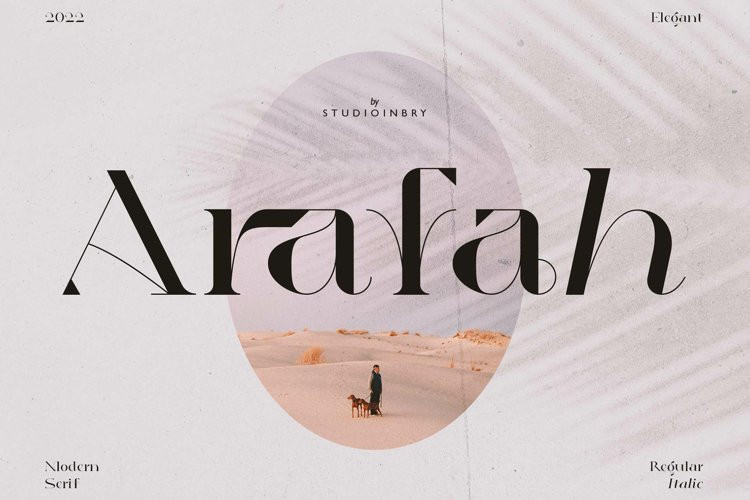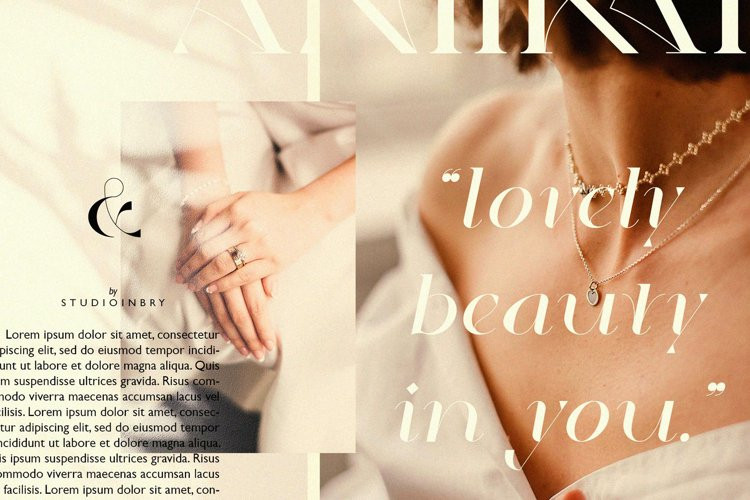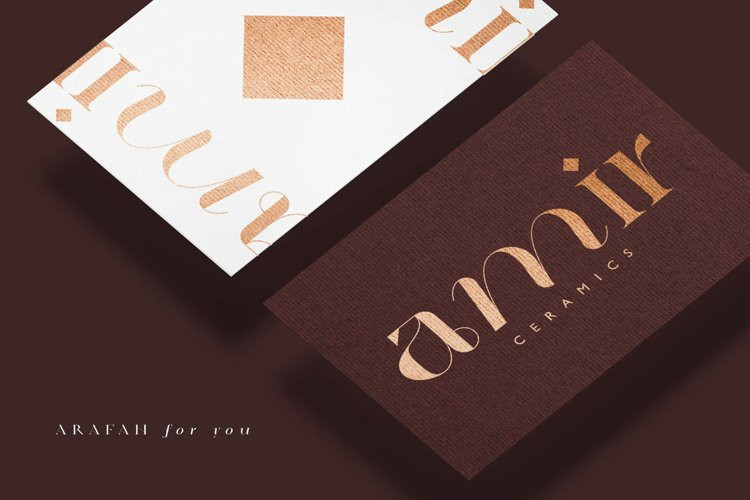
Arafah – Modern Serif Typeface
Arafah - Modern Serif TypefaceInspired by Arabic Culture’s theme and mixing it with Luxury, Elegant, and Modern feels that makes the font has a unique personality in Serif. You can use it for branding, social media, posters, packaging, & more.